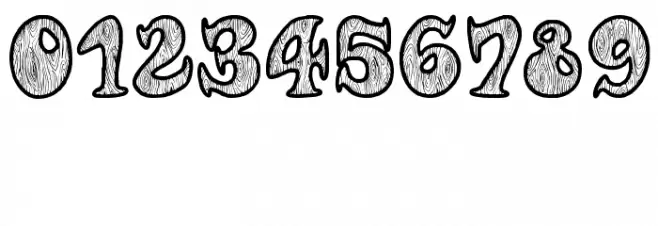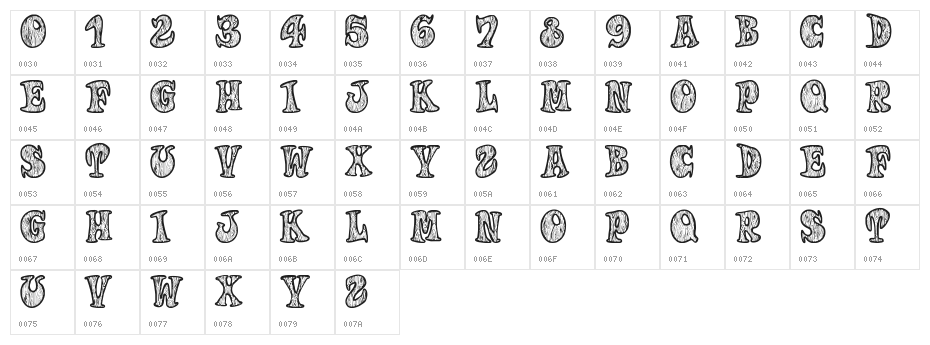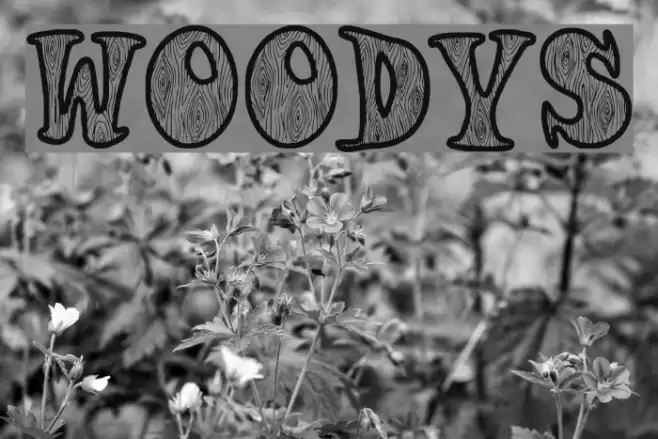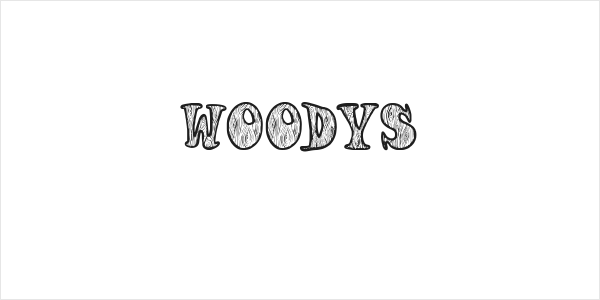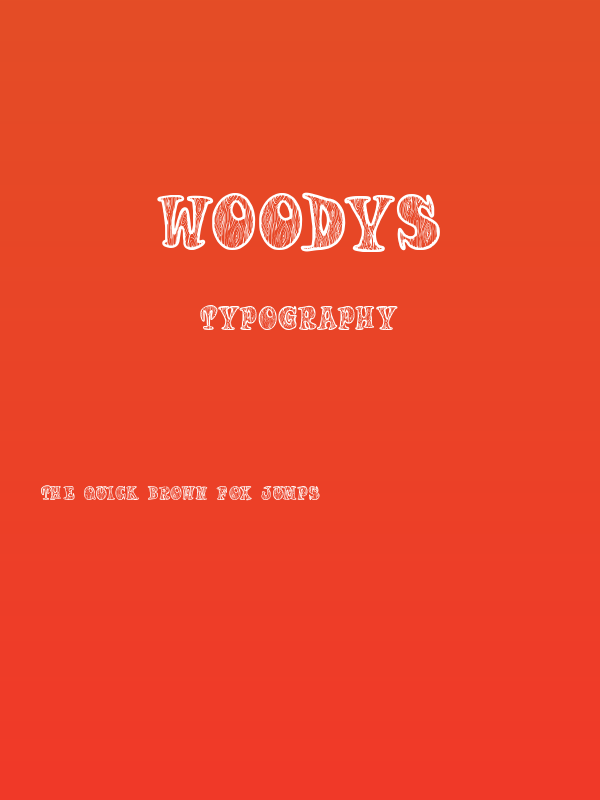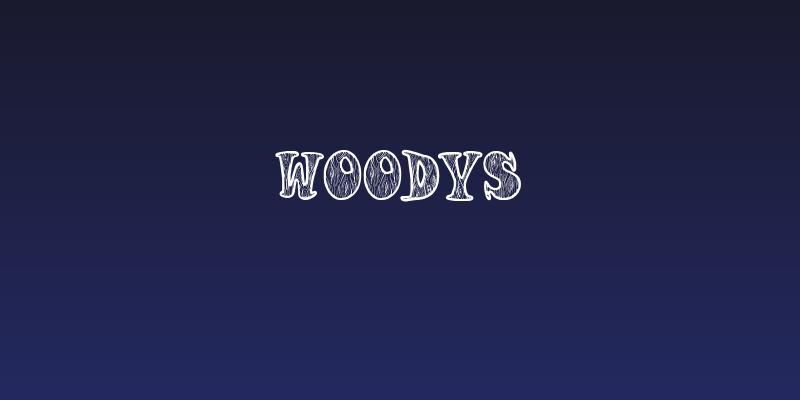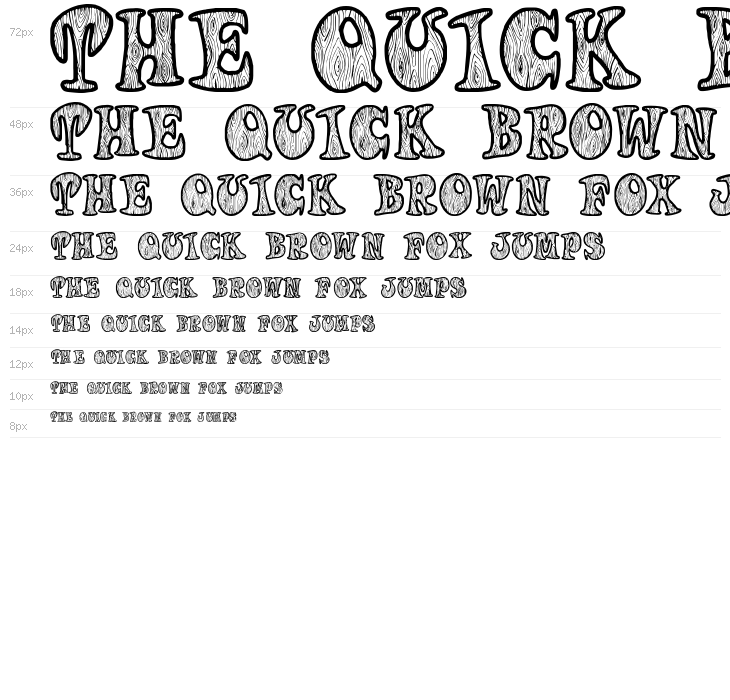
Woodys Font
Woodys Description
This font features a playful and rustic design, reminiscent of hand-carved wood. Each character is filled with intricate line work that mimics the texture of wood grain, giving it a unique and organic appearance. The letters are bold and slightly irregular, adding to the handcrafted feel. This font is perfect for projects that require a touch of nature or a whimsical, outdoorsy vibe. Its decorative style makes it ideal for headlines, posters, and branding that seeks to convey warmth and creativity.
| Proposed Projects | Ideal for nature-themed branding, rustic event invitations, children's book covers, and creative posters. |